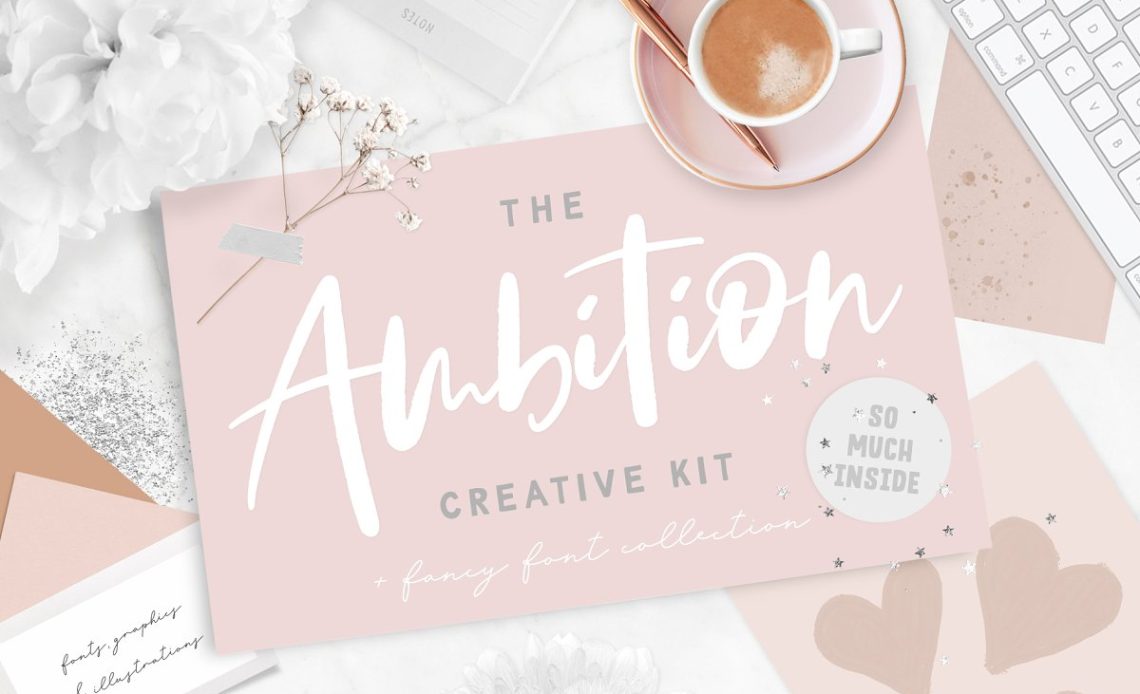
Are you a creative spirit looking for a font bundle that will elevate your projects? Look no further than The Ambition Creative Kit, created by Blog Pixie. This bundle is packed with hand-lettered script fonts and an abundance of graphics for decorative design, including popular brush scripts, delicate handwriting, and dreamy styles for typography lovers.
But that's not all - you'll also find all the little bits and pieces that will help you put together beautiful collages, mood boards, and inspiration with ripped paper, illustrations, photo frames, brush strokes, washi tape, glitter, watercolor splashes, and even real pressed flowers. You can create quote images for Pinterest or e-newsletters, web banners, and quotes to skyrocket on social media, especially Pinterest!
The fancy fonts included in this bundle are sure to catch your eye, with names like Ambrosia, Angel Dreams, Beautiful Disaster, Bloomday, Brushed Speckled, and Pink Peonies, among others. And don't forget about the decorative graphics, including 40 brush strokes and splatters, 156 font extras clipart, 82 glitter bits, 17 illustrations, and 40 paper rips and photo frames.
With 30 pre-made quotes, 110 pressed flowers, 43 social backgrounds, 27 washi tapes, and 12 watercolor splashes, you'll have all the decorative pieces you need to create something wonderful. All images are perfect to use in CANVA and PICMONKEY, making your design process seamless.
Don't miss out on the opportunity to add this font bundle and collage graphics kit to your creative toolkit. Start creating beautiful, whimsical collages, e-newsletters, web banners, and quotes that will capture your audience's attention today with The Ambition Creative Kit.